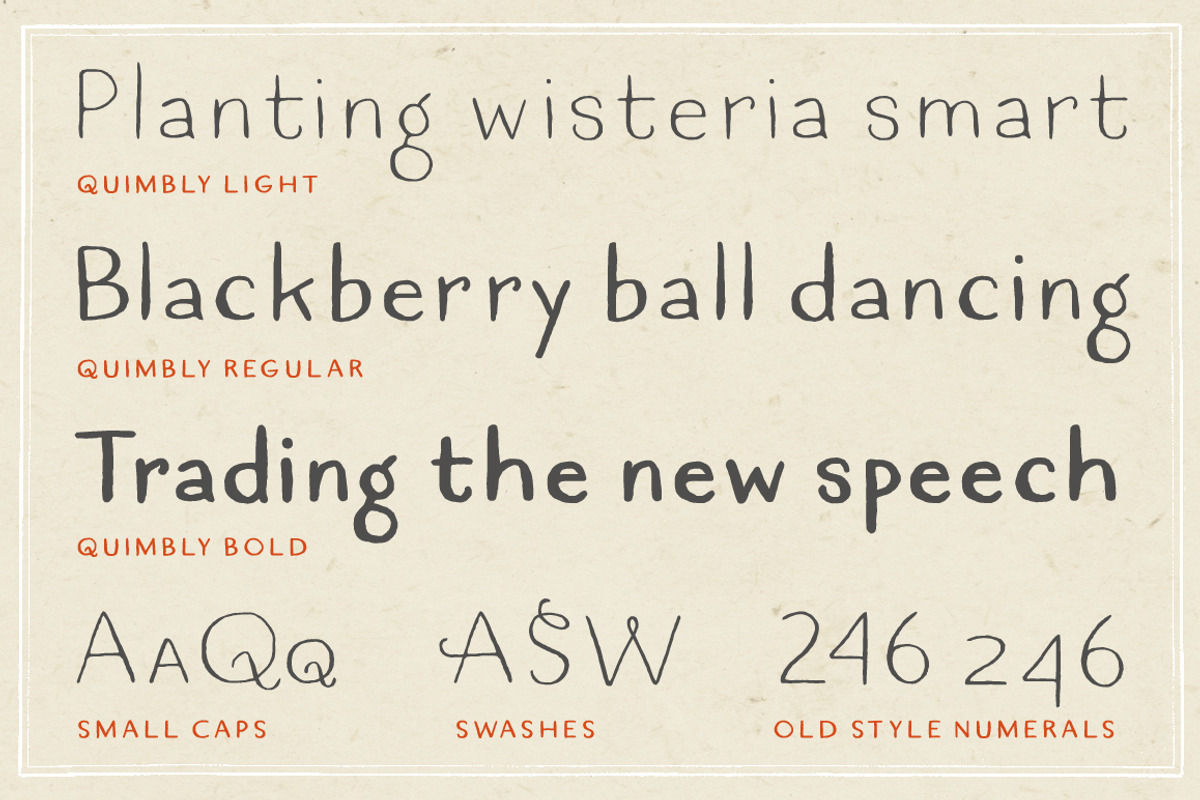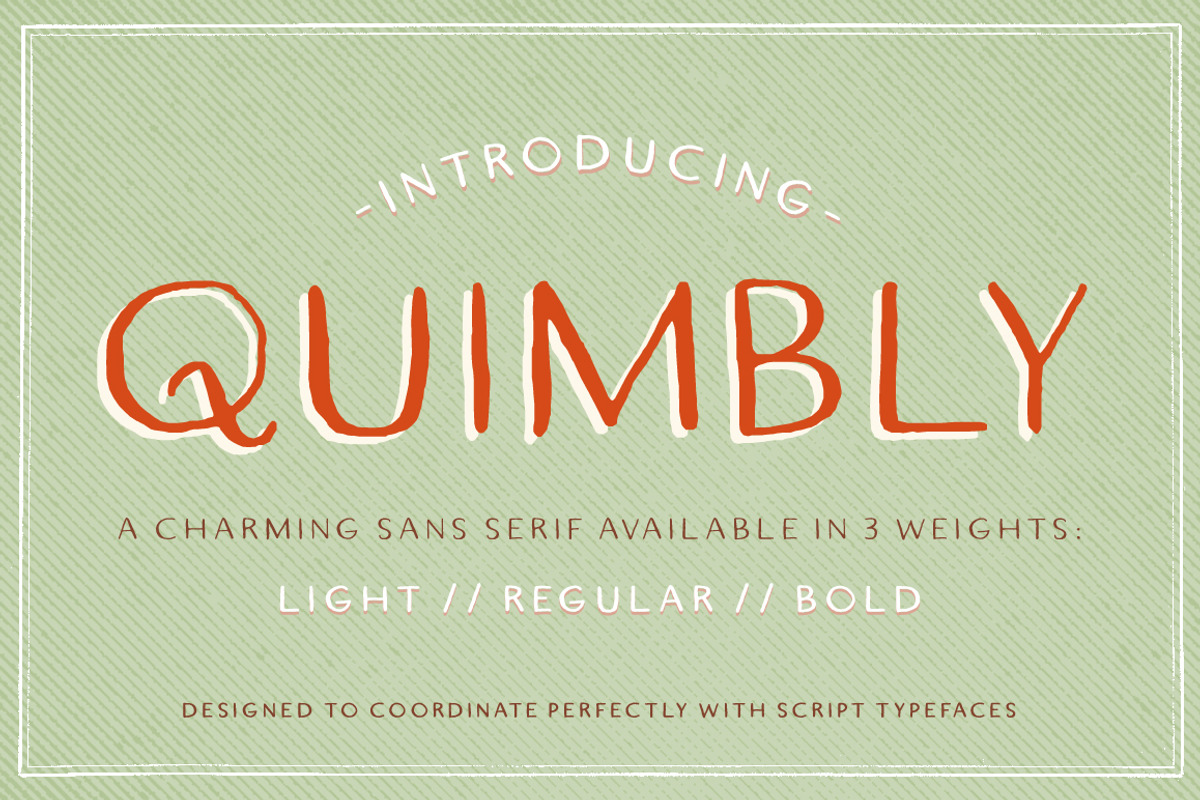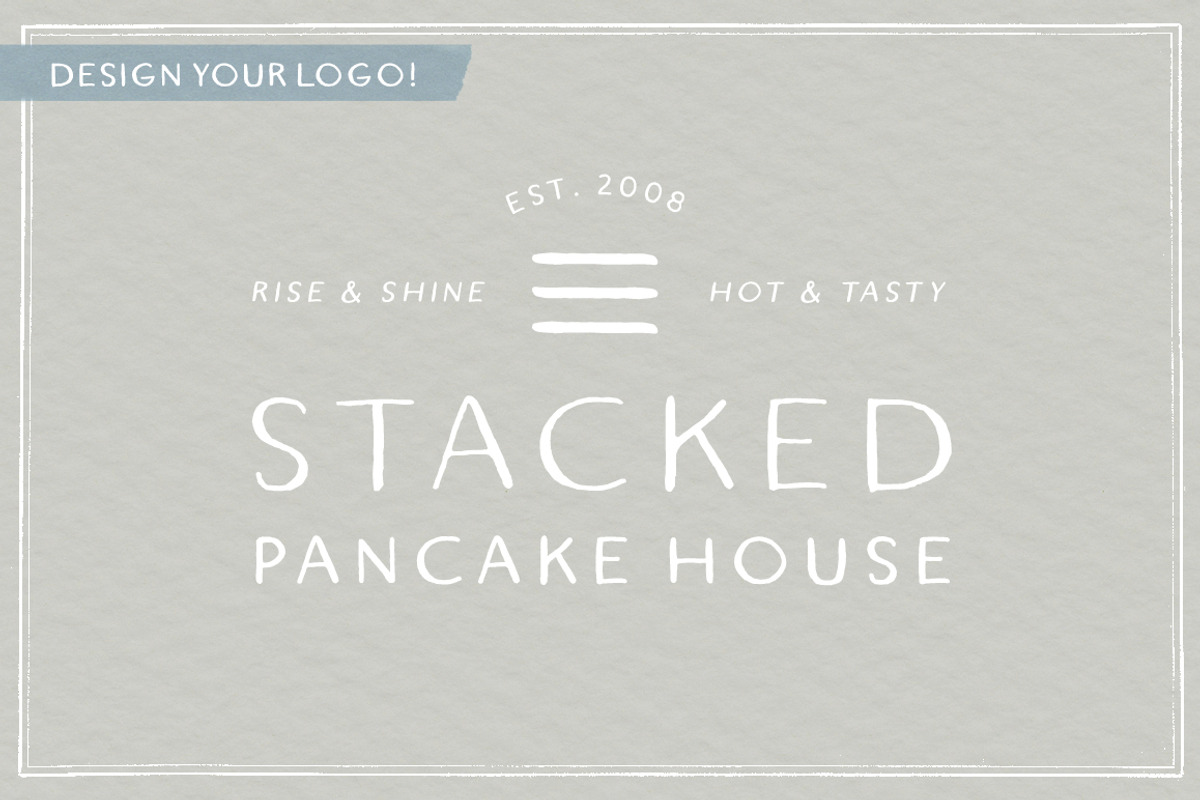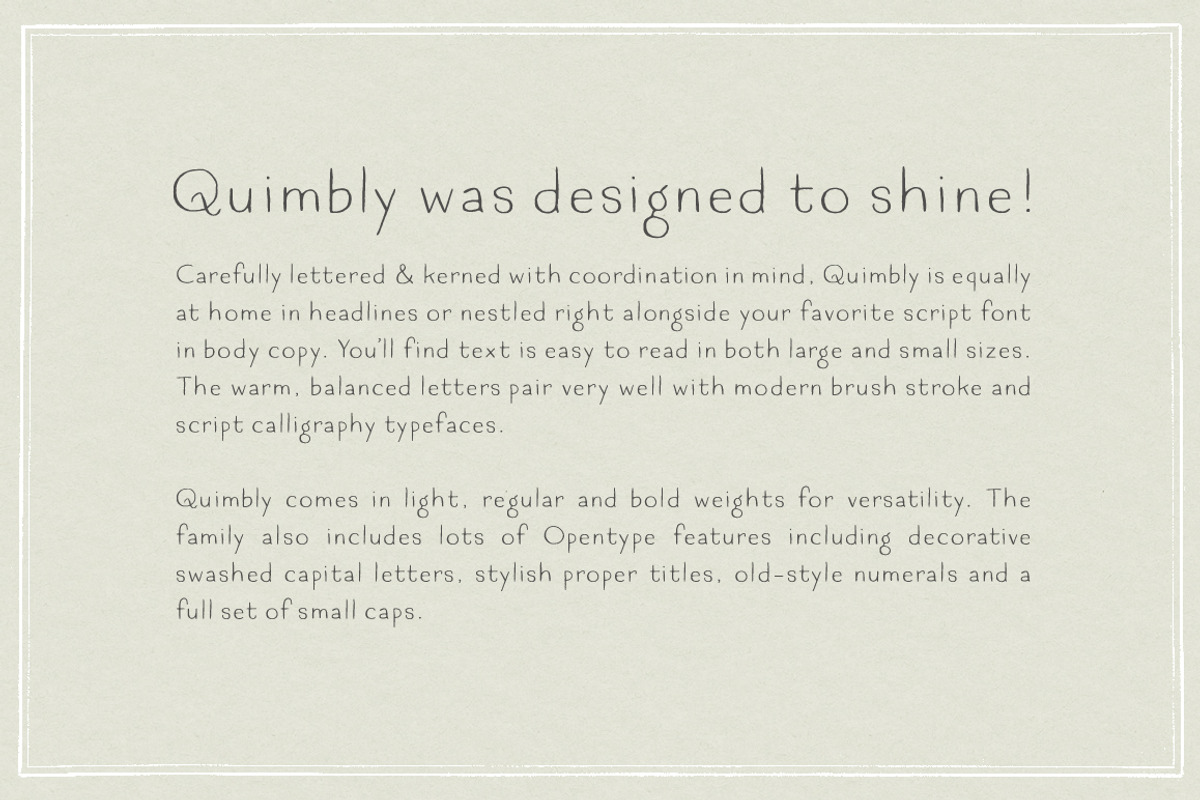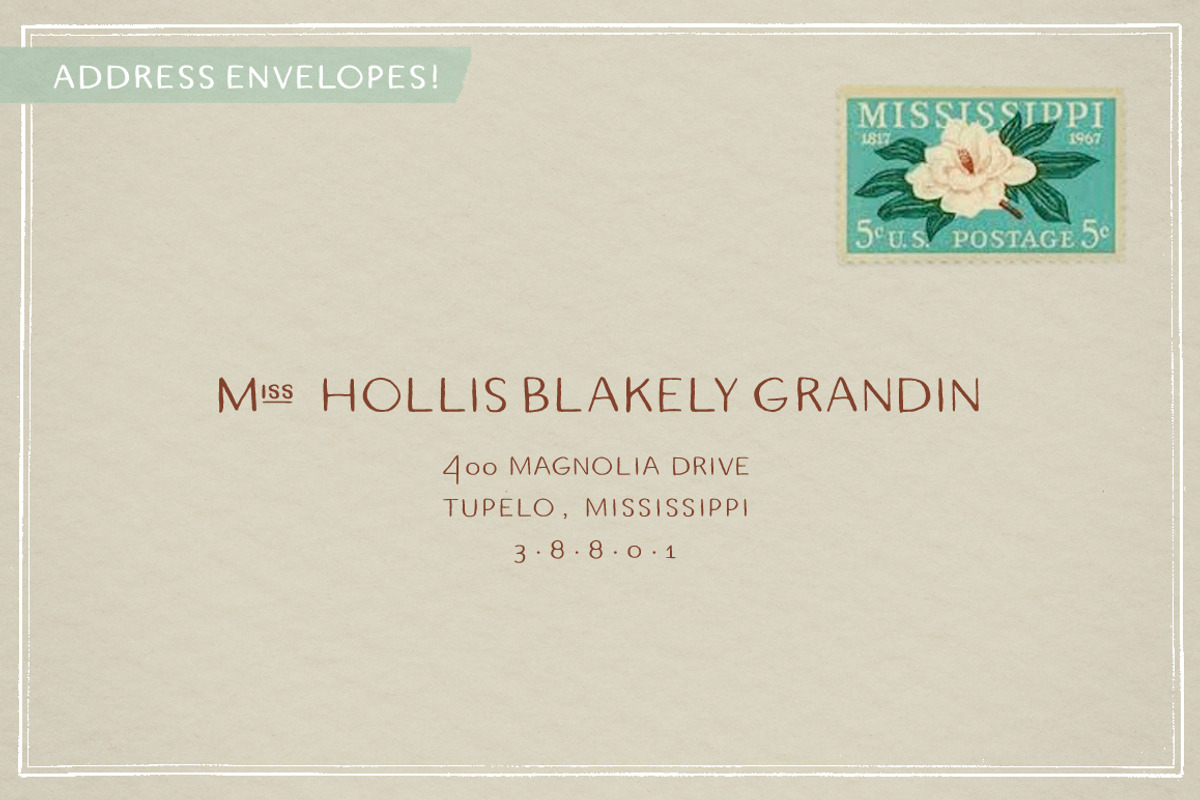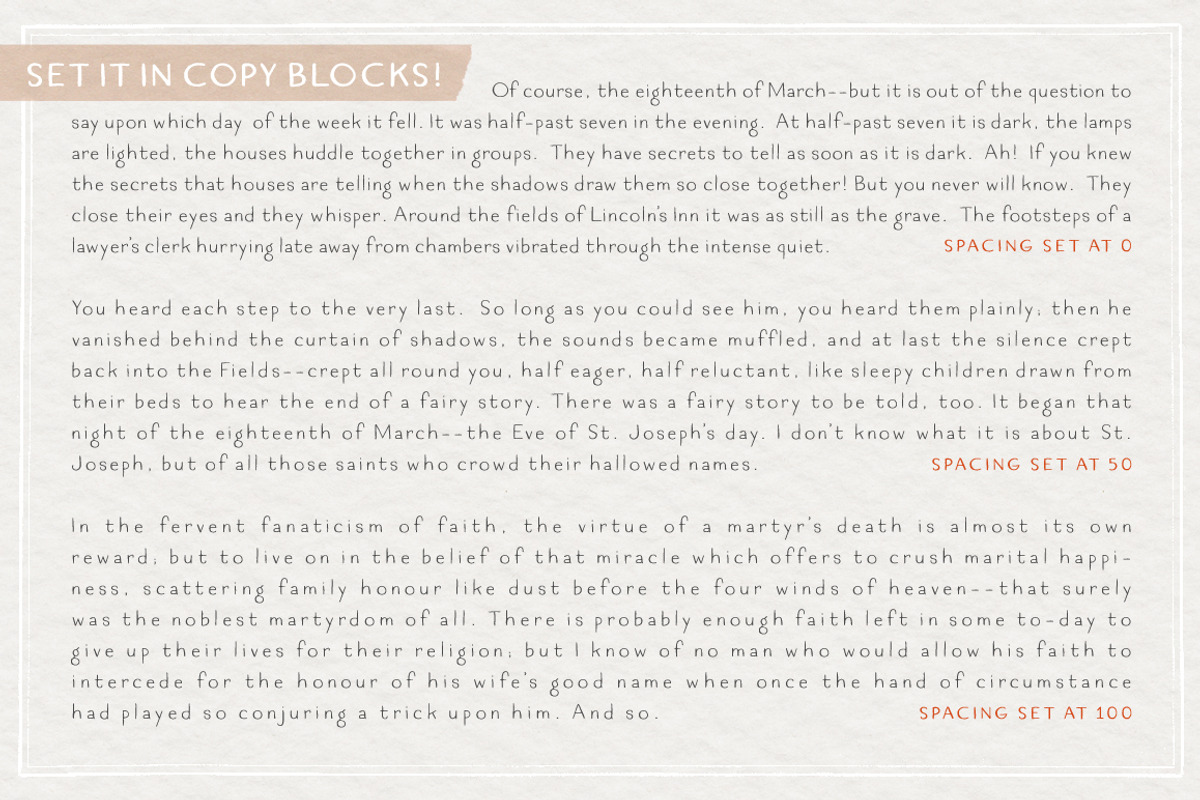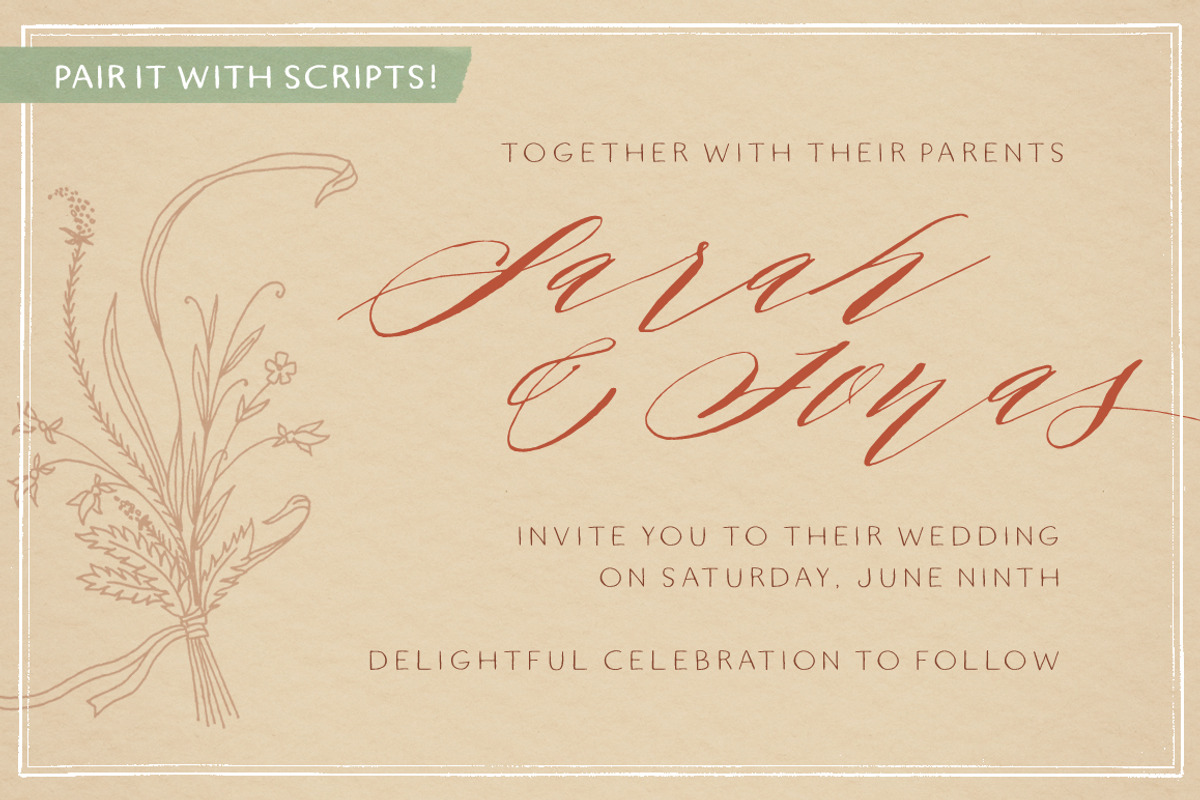
Quimbly Font Trio
Quimbly Font Trio by Magpie Paper Works is a font selected for branding, posters, packaging, typography.
- This hand-drawn font family includes three weights (light, regular and bold) and was carefully created with coordination in mind.
- Multi-language support is also included in the font.
- And unlike many other hand drawn fonts, Quimbly's thoughtful kerning means your text is easy to read at all point sizes!
- Rich Opentype features include decorative swashed capital letters, stylish proper titles, old-style numerals and a full set (uppercase & low
Why Quimbly Font Trio is worth a look
Quimbly Font Trio by Magpie Paper Works fits naturally into Branding, posters, packaging, typography.